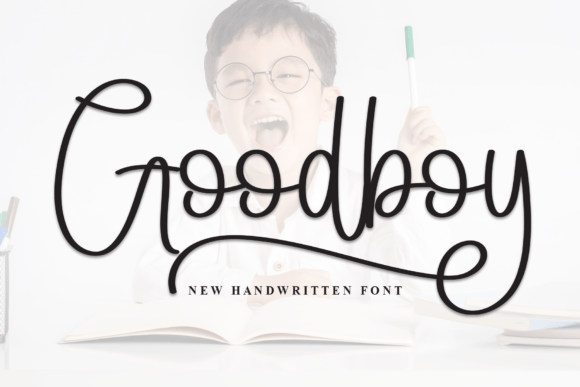
Introducing Goodboy Font: The Ultimate Casual Handwritten Font for Your Creative Projects
In the world of typography, fonts play a crucial role in conveying the tone and personality of a design. When it comes to creating a relaxed and friendly vibe, a casual handwritten font is often the perfect choice. This is where Goodboy Font comes in – a beautiful, effortless, and charming typeface that captures the essence of a carefree and authentic style. In this article, we’ll dive into the world of Goodboy Font, exploring its features, benefits, and uses, as well as provide tips on how to make the most of this amazing font.
What is Goodboy Font?
Goodboy Font is a casual handwritten font that exudes a natural, flowing, and relaxed vibe. Its unique strokes and curves bring a sense of warmth and authenticity to any design, making it perfect for personal projects, social media, and invitations. The font’s easygoing style is designed to add a charming touch to your creations, making them stand out from the crowd.
Goodboy Font is ideal for designers, crafters, and writers who want to add a personal touch to their work. Whether you’re creating a blog post, a social media graphic, or a handmade invitation, this font is sure to bring a smile to your audience’s faces. Its friendly and approachable style makes it perfect for designs that require a human touch.
Key Features of Goodboy Font
- Casual and Handwritten: Goodboy Font boasts a natural, handwritten look that’s perfect for creating a relaxed and friendly atmosphere.
- Flowing Strokes: The font’s smooth, flowing strokes bring a sense of elegance and sophistication to your designs.
- Effortless and Charming: Goodboy Font adds a charming touch to any design, making it perfect for personal projects and social media.
- Authentic and Warm: The font’s easygoing style brings warmth and authenticity to your creations, making them feel more human.
Benefits of Using Goodboy Font
So, why choose Goodboy Font for your next project? Here are just a few benefits of using this amazing font:
- Easy to Read: Goodboy Font is clear and legible, making it perfect for body text and captions.
- Versatile: The font is suitable for a wide range of design applications, from social media graphics to invitations and more.
- Unique and Creative: Goodboy Font adds a touch of personality to your designs, setting them apart from the crowd.
- Time-Saving: With Goodboy Font, you can create stunning designs in no time – perfect for busy designers and crafters.
How to Use Goodboy Font
Using Goodboy Font is easy! Here are a few tips to get you started:
- Pair with Other Fonts: Combine Goodboy Font with other fonts to create a unique and visually appealing design.
- Experiment with Colors: Try out different colors and textures to add depth and interest to your design.
- Keep it Simple: Don’t be afraid to keep things simple – Goodboy Font looks great on its own or paired with a few select design elements.
Goodboy Font in Action
So, what does Goodboy Font look like in action? Here are a few examples of how you can use this amazing font in your designs:
- Social Media Graphics: Use Goodboy Font to create eye-catching social media graphics that showcase your personality.
- Invitations: Add a touch of elegance and sophistication to your invitations with Goodboy Font.
- Blog Posts: Use Goodboy Font to add a personal touch to your blog posts and make them feel more approachable.
In conclusion, Goodboy Font is a casual handwritten font that’s perfect for designers, crafters, and writers who want to add a personal touch to their work. With its natural, flowing strokes and effortless style, this font is sure to bring a relaxed and friendly vibe to any design. Whether you’re creating a social media graphic, an invitation, or a blog post, Goodboy Font is the perfect choice.